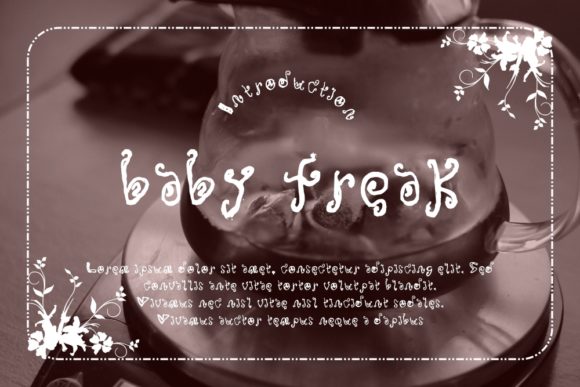
Prepare to be captivated by the irresistible charm of Baby Freak Font, the enchanting display font that will ignite your designs with a dash of whimsy and a touch of style. Every stroke of this font exudes a playful spirit, inviting you to unleash your imagination and create captivating visuals that will leave an unforgettable mark.
Step into a world of endless possibilities, where Baby Freak Font becomes your secret weapon for creating:
- Logos that dance with originality, capturing the essence of your brand with a playful twist.
- Branding that radiates personality, infusing your every touchpoint with a touch of lighthearted fun.
- Social media posts that spark engagement, grabbing attention with their irresistible charm.
- DIY projects that burst with character, transforming your creations into works of art.
Baby Freak Font is not just a font; it's an invitation to embrace your creativity and let your designs soar. Its versatility knows no bounds, molding itself seamlessly into any project you envision. From fashion websites that exude a touch of whimsy to playful packaging that delights the senses, Baby Freak Font is the key to unlocking your design dreams.
Don't resist the allure of Baby Freak Font any longer. Dive into its enchanting world and prepare to witness the transformation of your designs. Let your imagination roam free, embrace the playful spirit, and create visuals that captivate and inspire. The world of design awaits your touch, and Baby Freak Font is the perfect companion to guide you on this extraordinary journey.